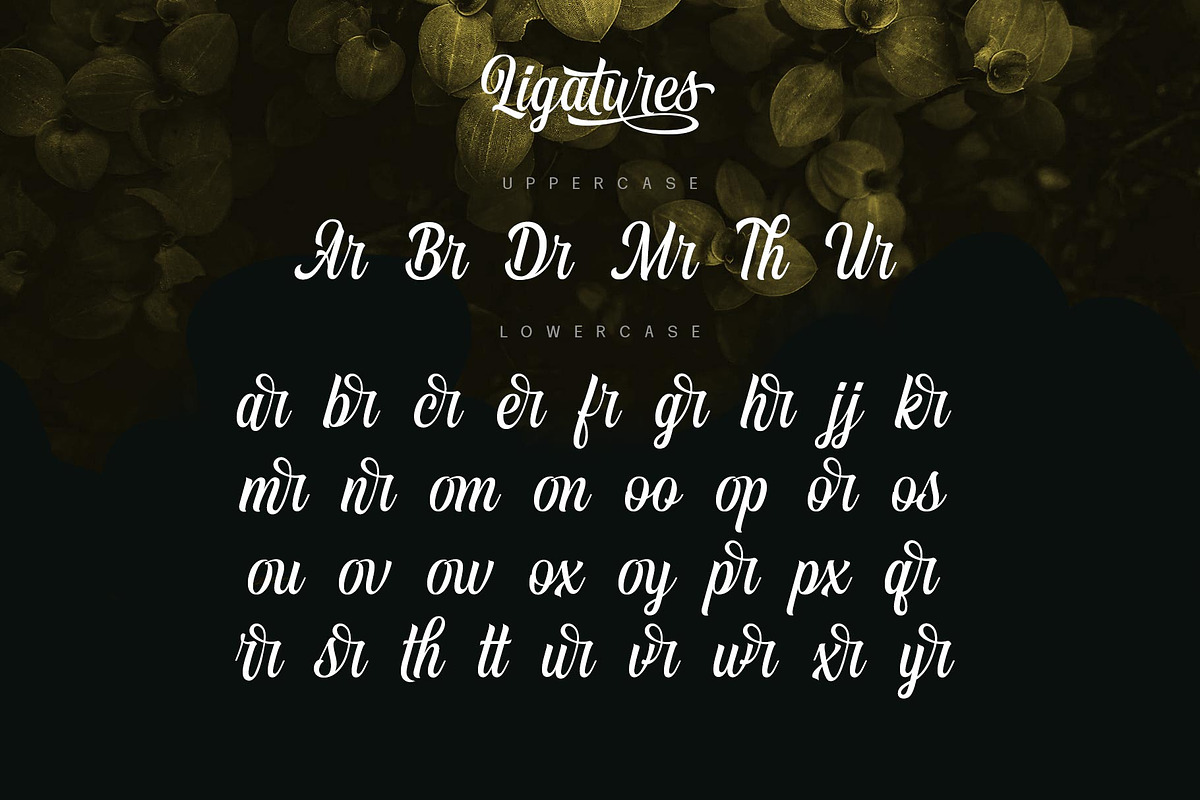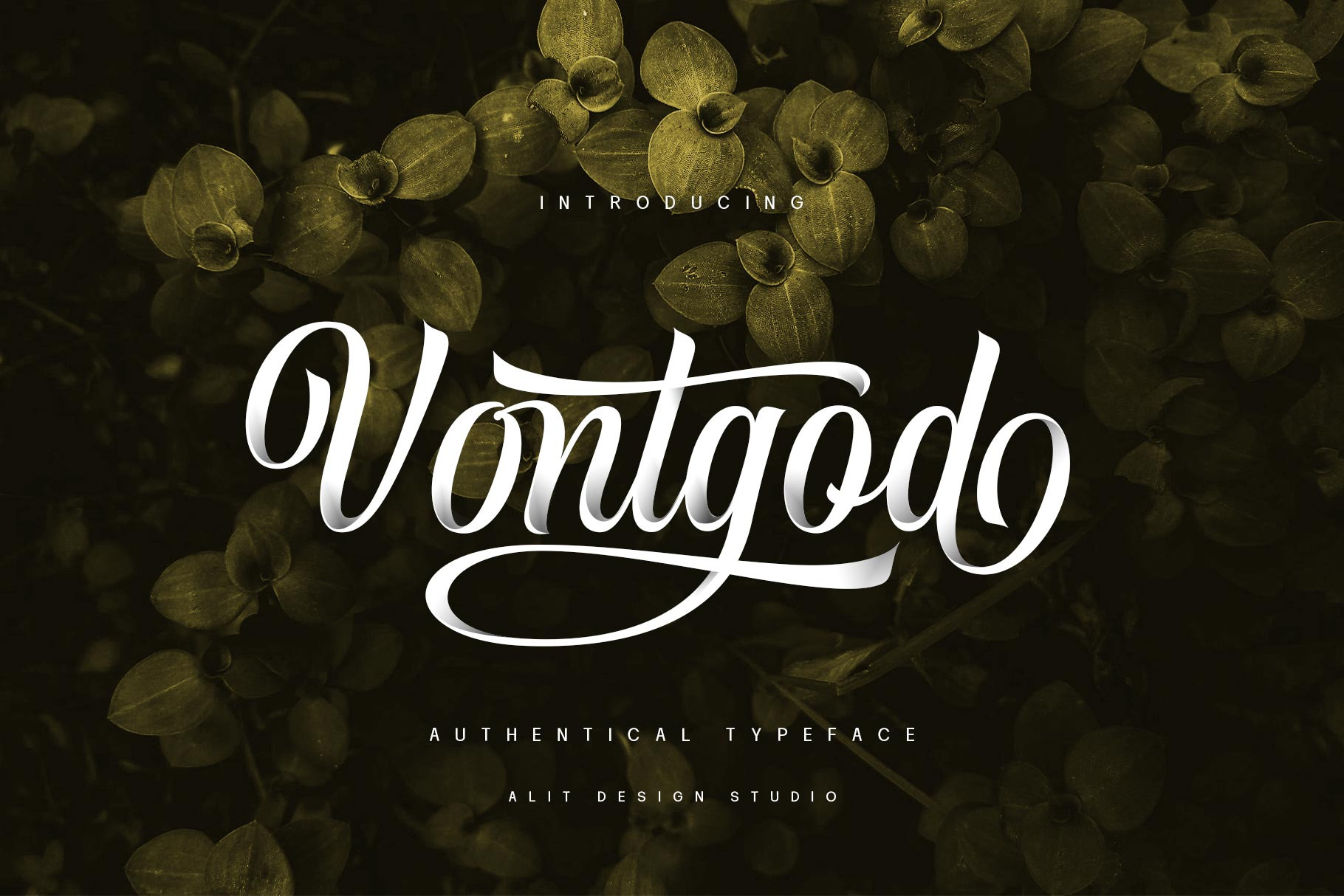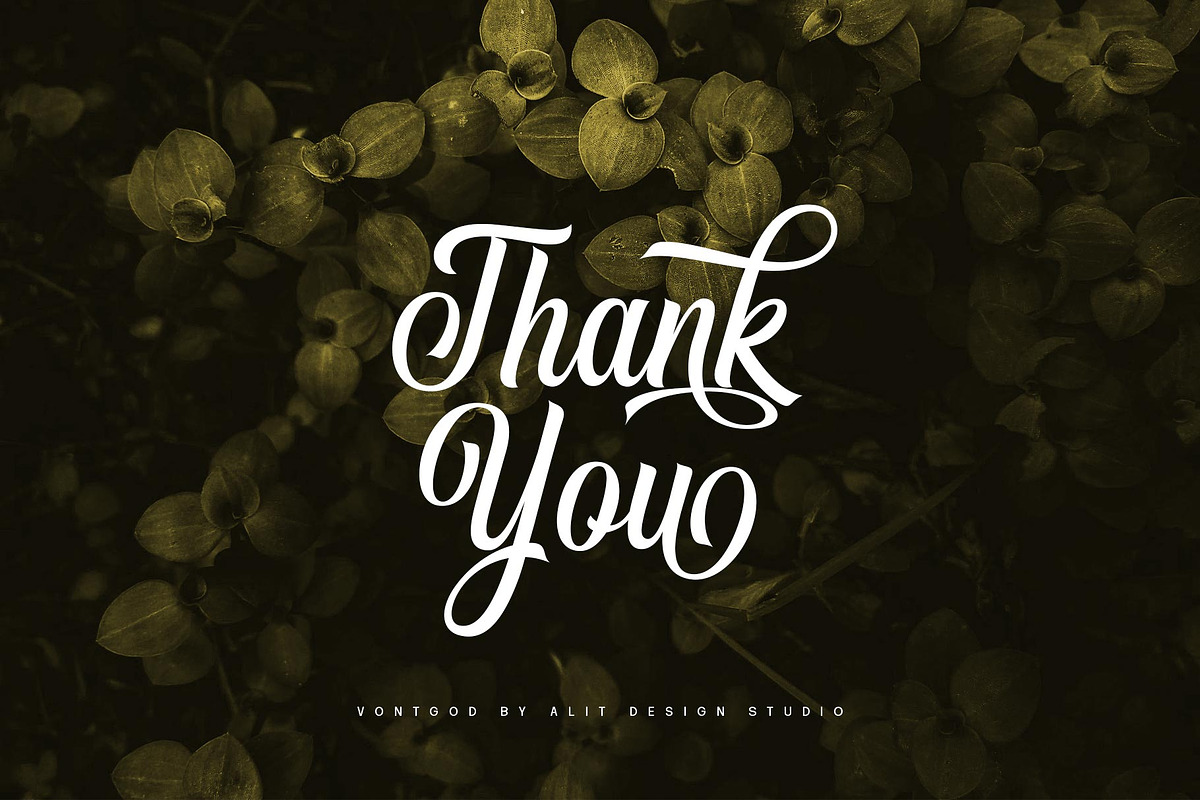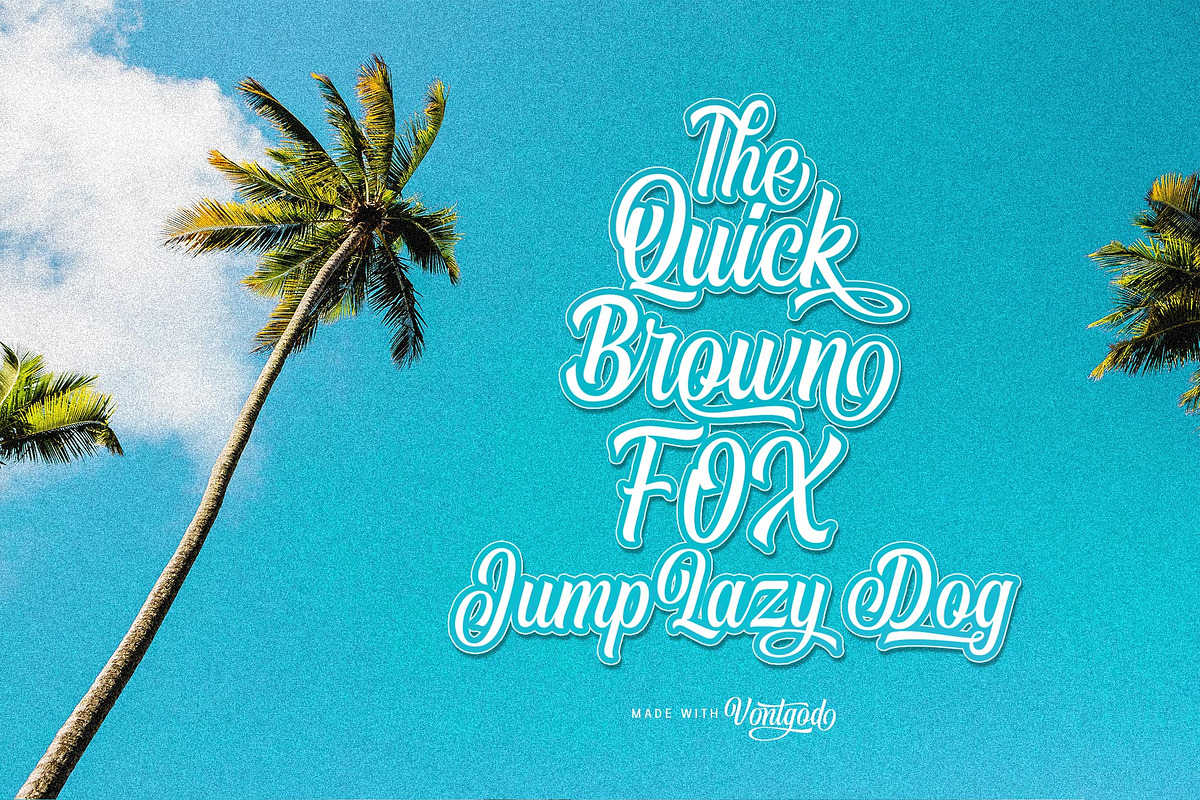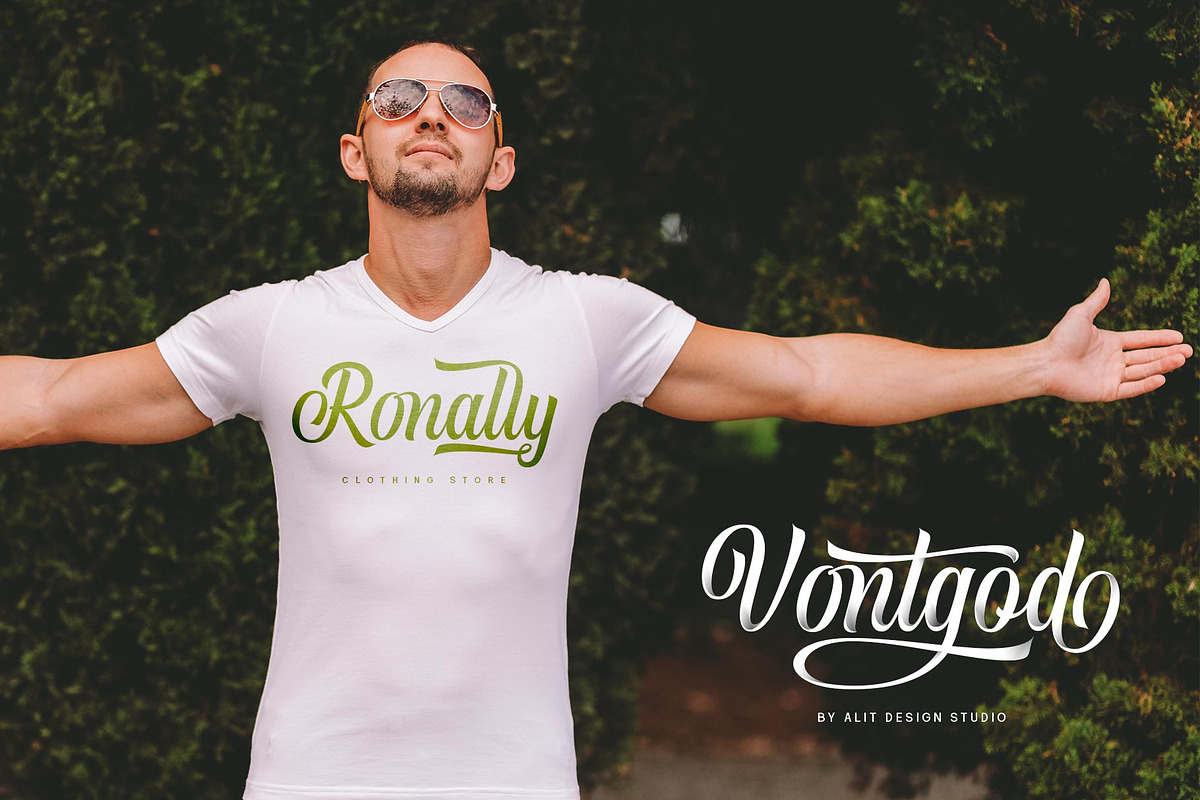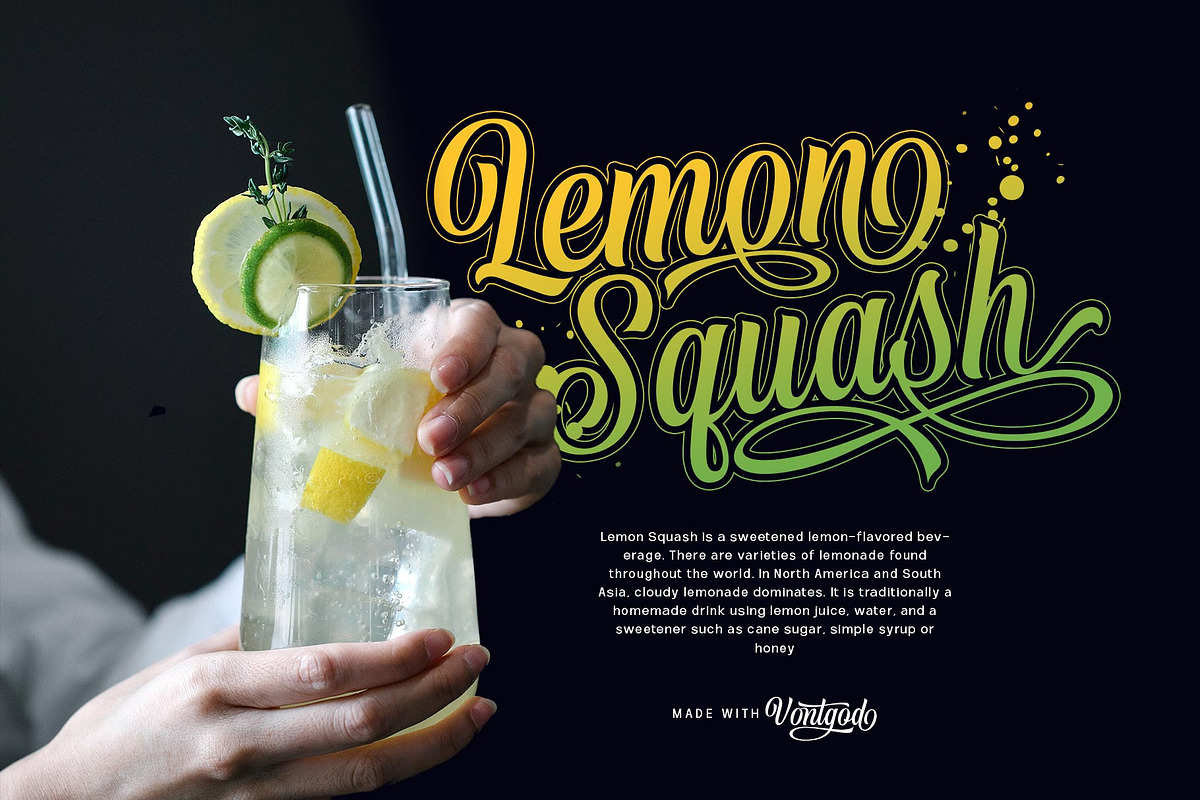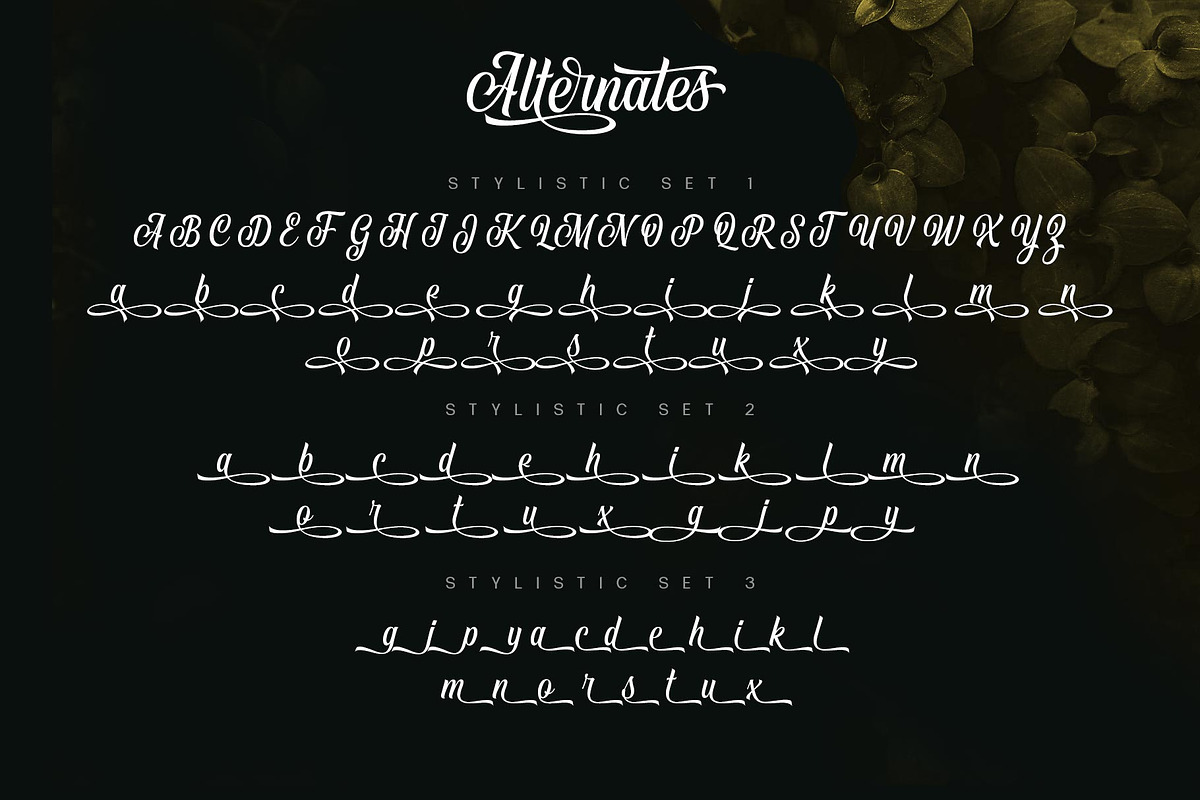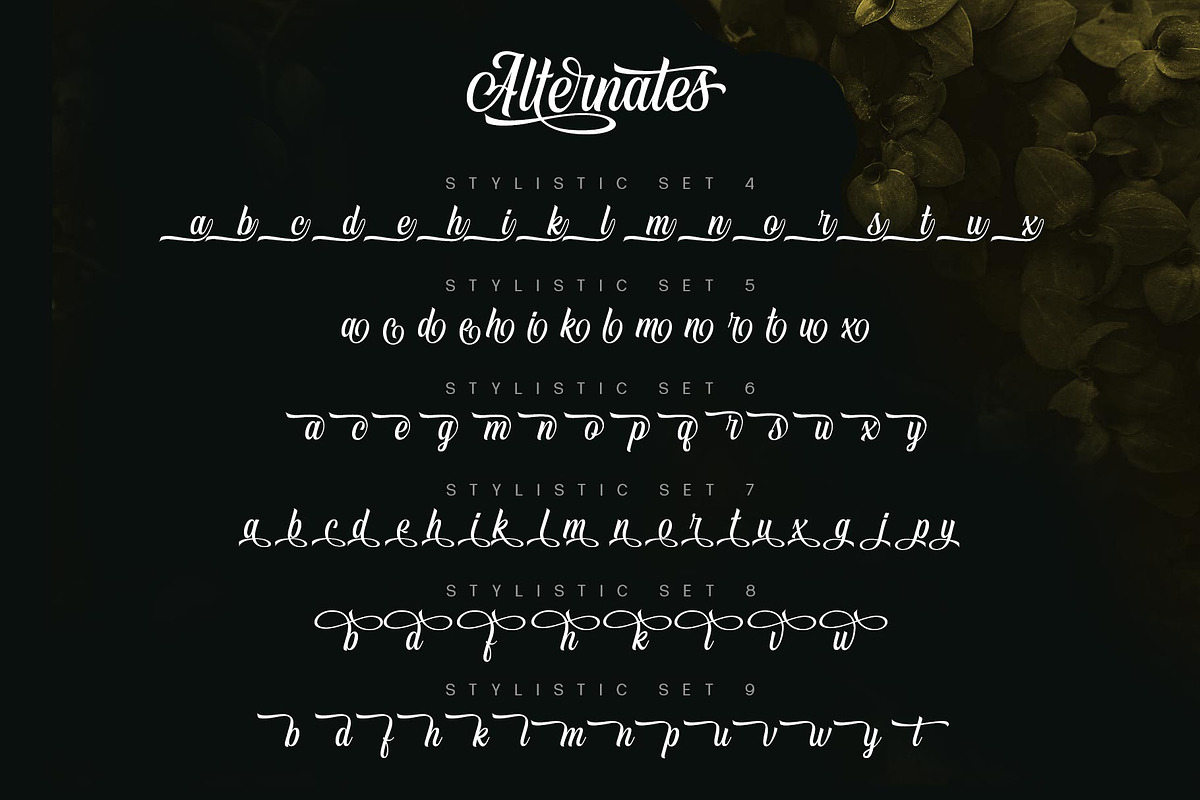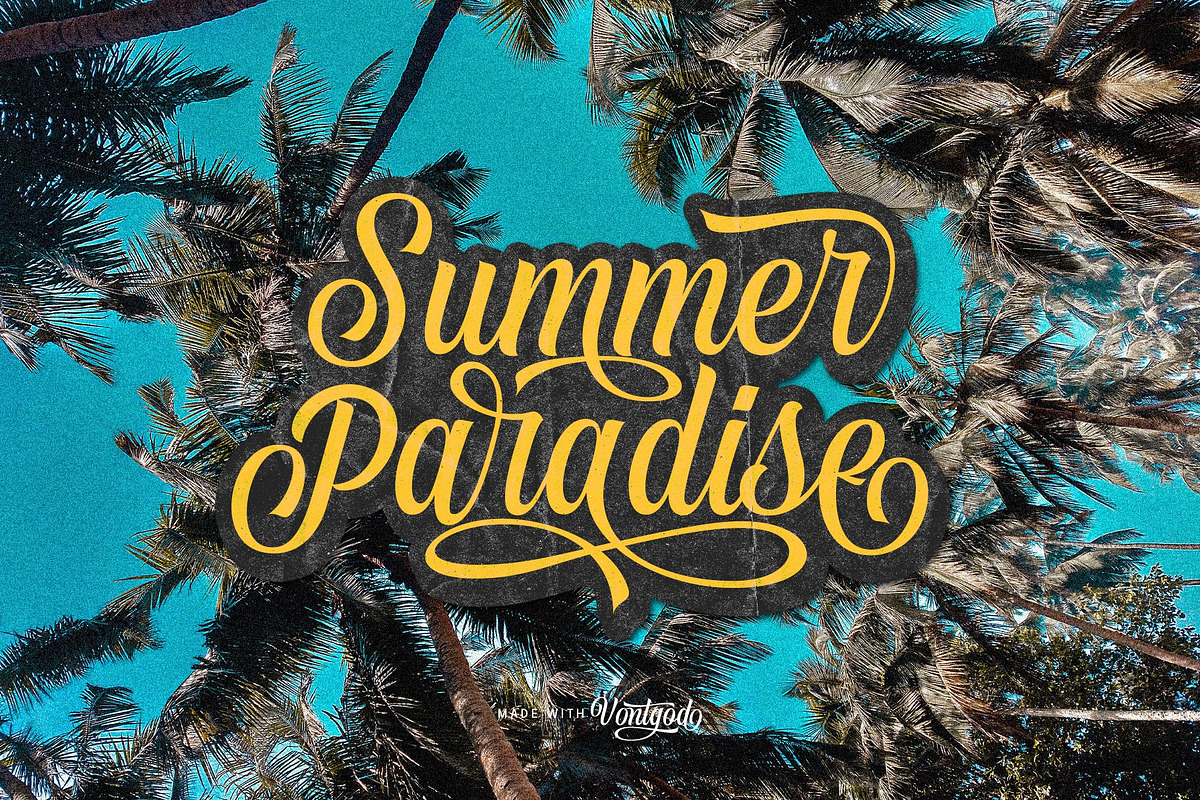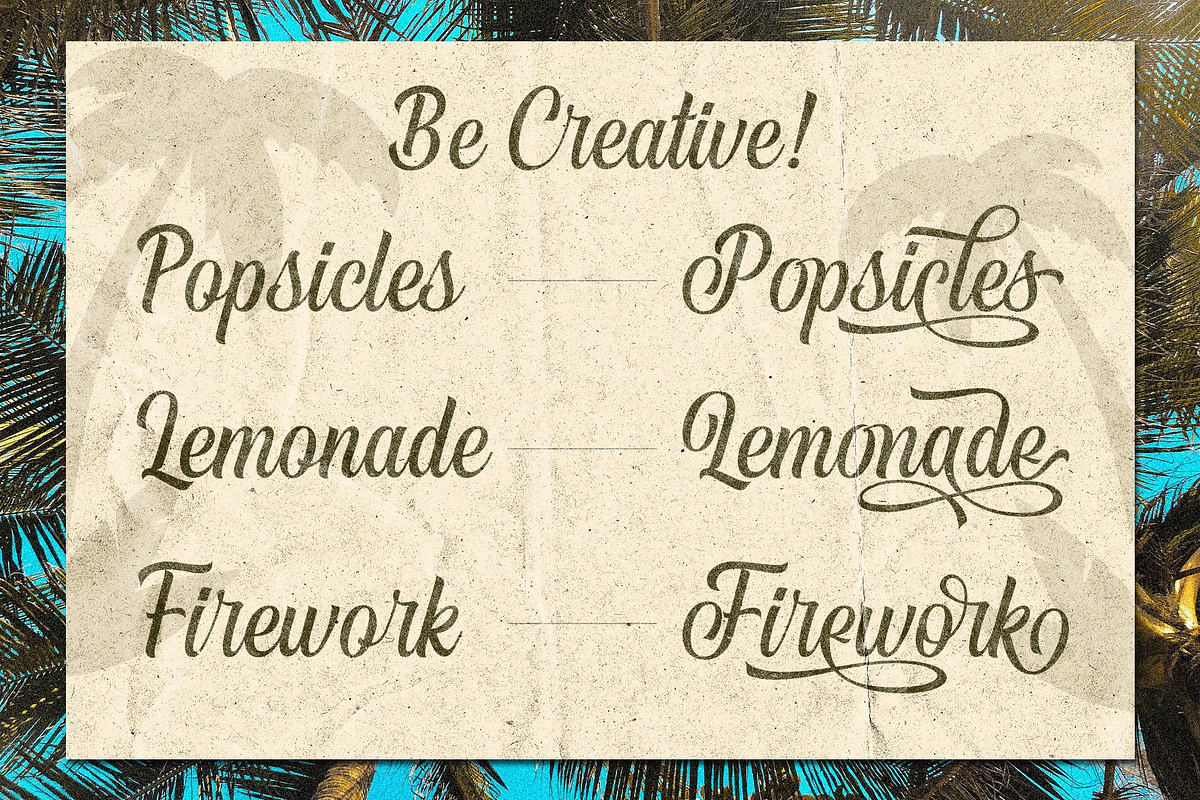
Vontgod Typeface
Introducing Vontgod Elegant script typeface
Vontgod Typeface is inspired by the classic era typeface in the 1800 era but is combined with today's era and produces elegant script and charming typeface. The details of the “Vontgod Typeface” shape are very subtle and flow creating unique and gorgeous curves. Elegant script typefaces like “Vontgod Typeface” are very easy to apply to any design, especially those with an elegant and smooth concept, apart from that this font is very easy to use in both design and non-design programs because all alternates and glyphs are supported by Unicode (PUA).
Vontgod Typeface contains 744 glyphs with many unique and interesting alternate swash options. In addition. In the poster preview all the letters are in Vontgod Typeface.